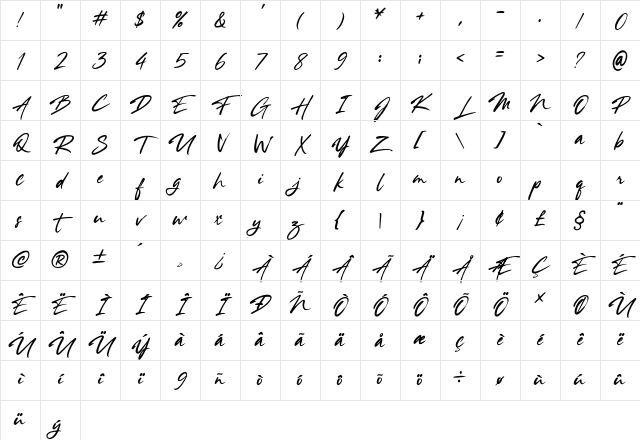
Fantasm and Secrets Regular
Foundry: BlackFridayFont
Designer: BlackFridayFont
Design Context for Fantasm and Secrets
Fantasm and Secrets is a composed and adaptable typeface that performs quietly and consistently across a wide range of design contexts.